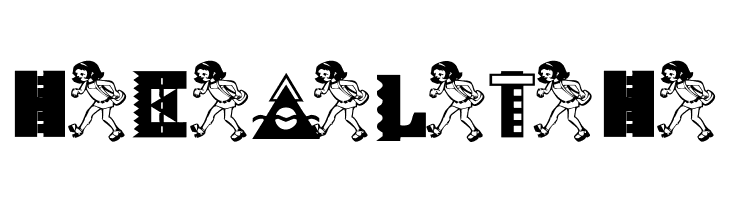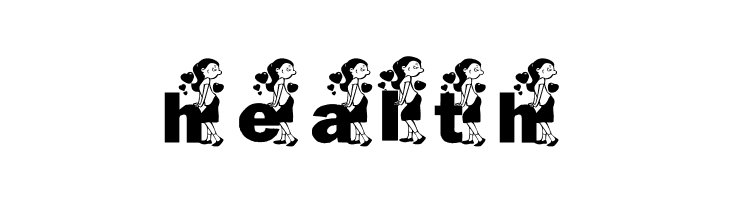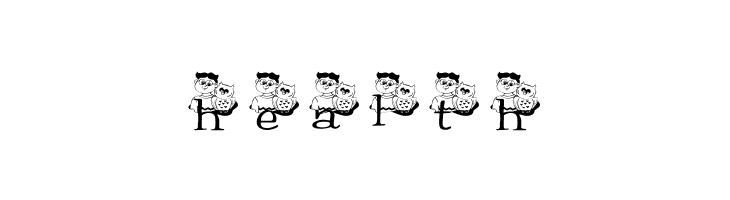
A whimsical font with angel-themed characters, perfect for playful designs.
A whimsical and decorative font with cartoon figures and ornate frames.
A decorative font with beach-themed illustrations within each letter.
A playful font with cartoon characters integrated into each letter.
A playful, decorative font featuring cartoon rabbits integrated into each character.
A playful, decorative font with cartoon-like characters integrated into each letter.
A bold, decorative font with cartoon figures, perfect for playful designs.
A whimsical, decorative font with cartoon-like characters integrated into each letter.
A playful font with cartoon characters accompanying each letter.
A novelty font made up of assorted decorative frame outlines.